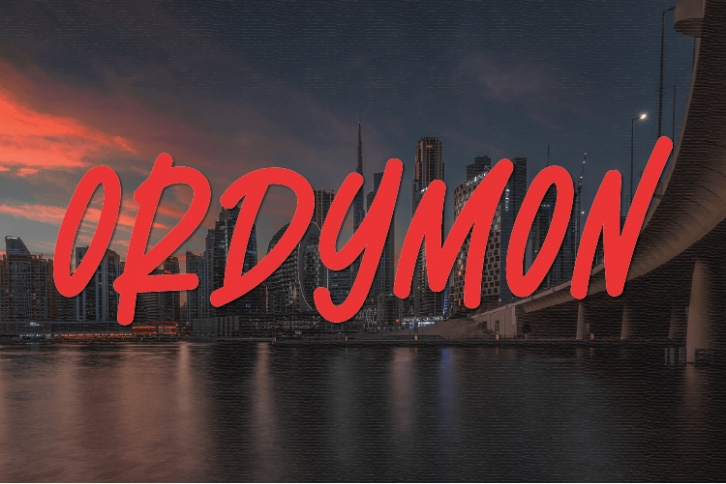
Ordymon is a natural handwritten font without changing a single node in each character’s indentation, this makes this font very interesting and unique. Perfect for quotes, notes, tees, and any product design. I really hope you enjoy it – please do let me know what you think, comments & likes are always hugely welcomed and appreciated.